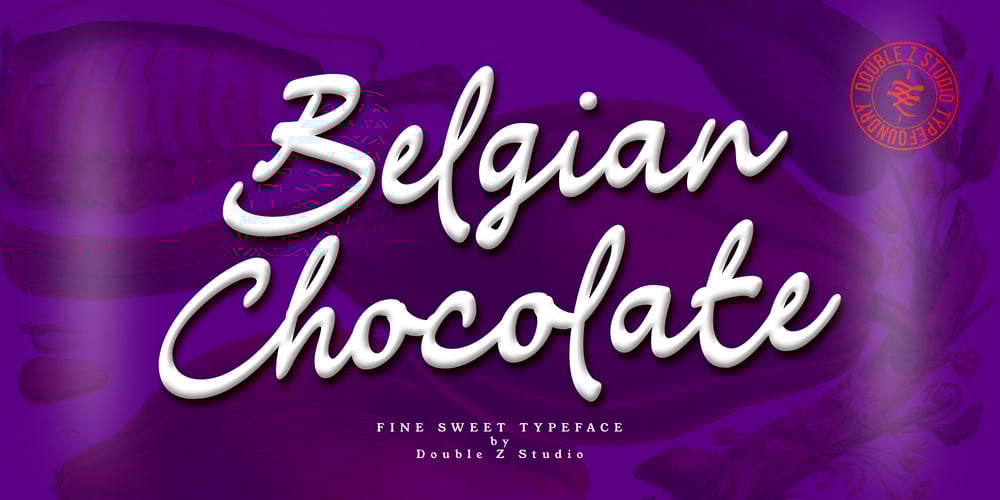
Belgian Chocolate Font Family was designed by Ahmad Zakiy and published by Double Z Studio. Belgian Chocolate contains 1 styles and family package options. Belgian Chocolate Font. Carefully crafted. It is a sweet chic, beautiful, modern, and elegant script. Smoothly flowing, perfect for designing blog logo, website logo, print ads, book covers, film covers, apparel, cards, logos, posters, etc. Opentype features give you more alternatives in designing.